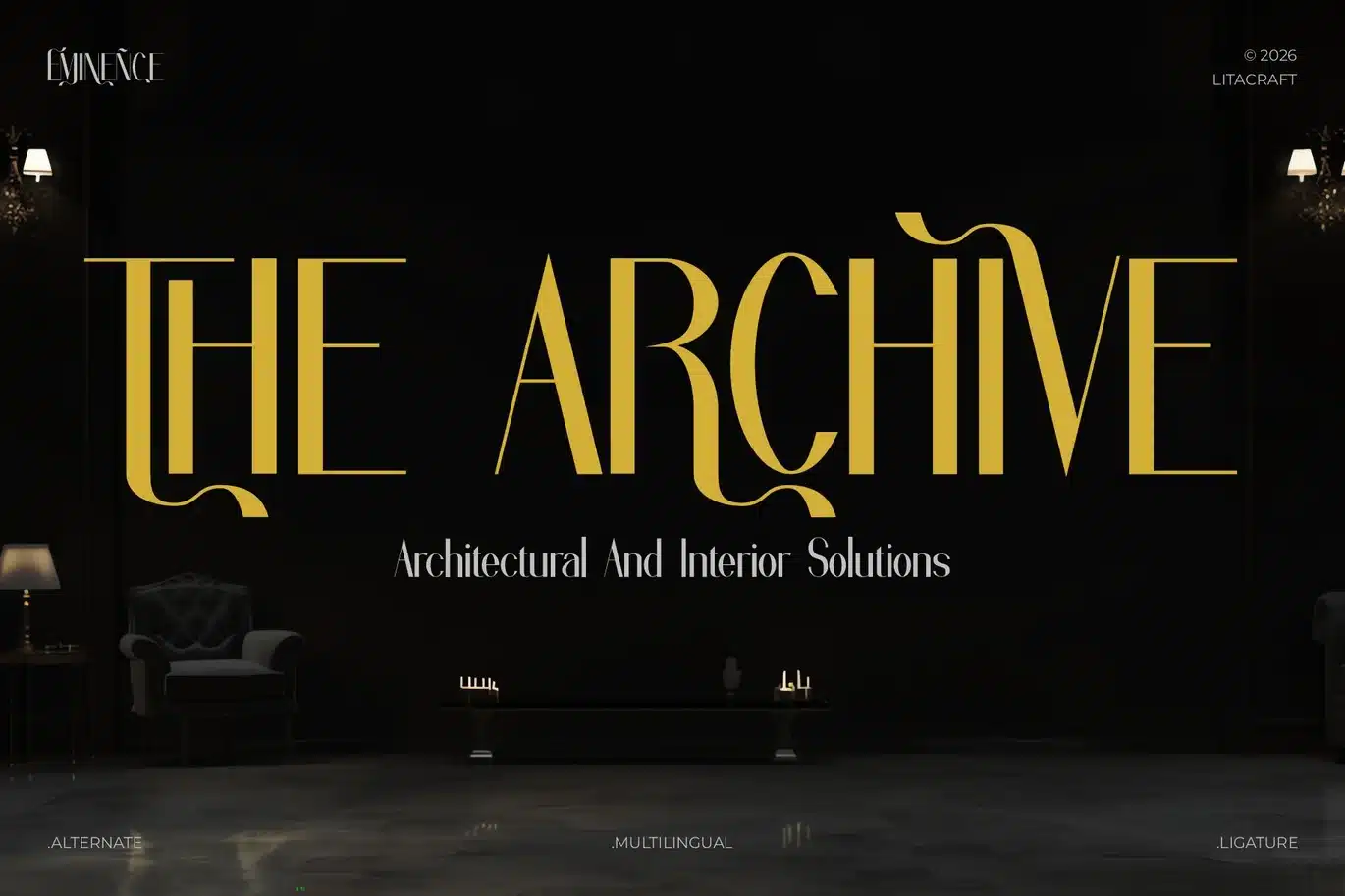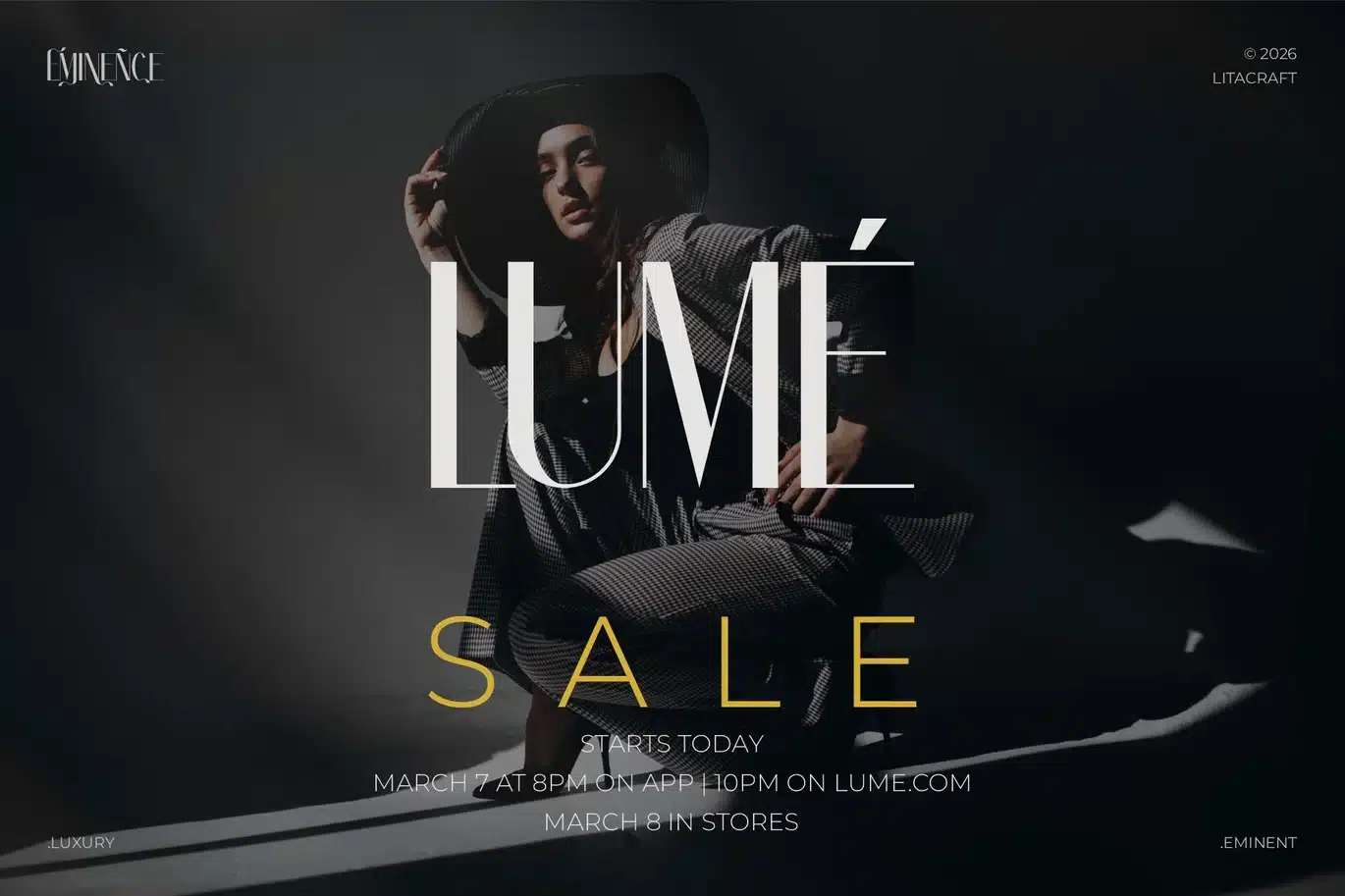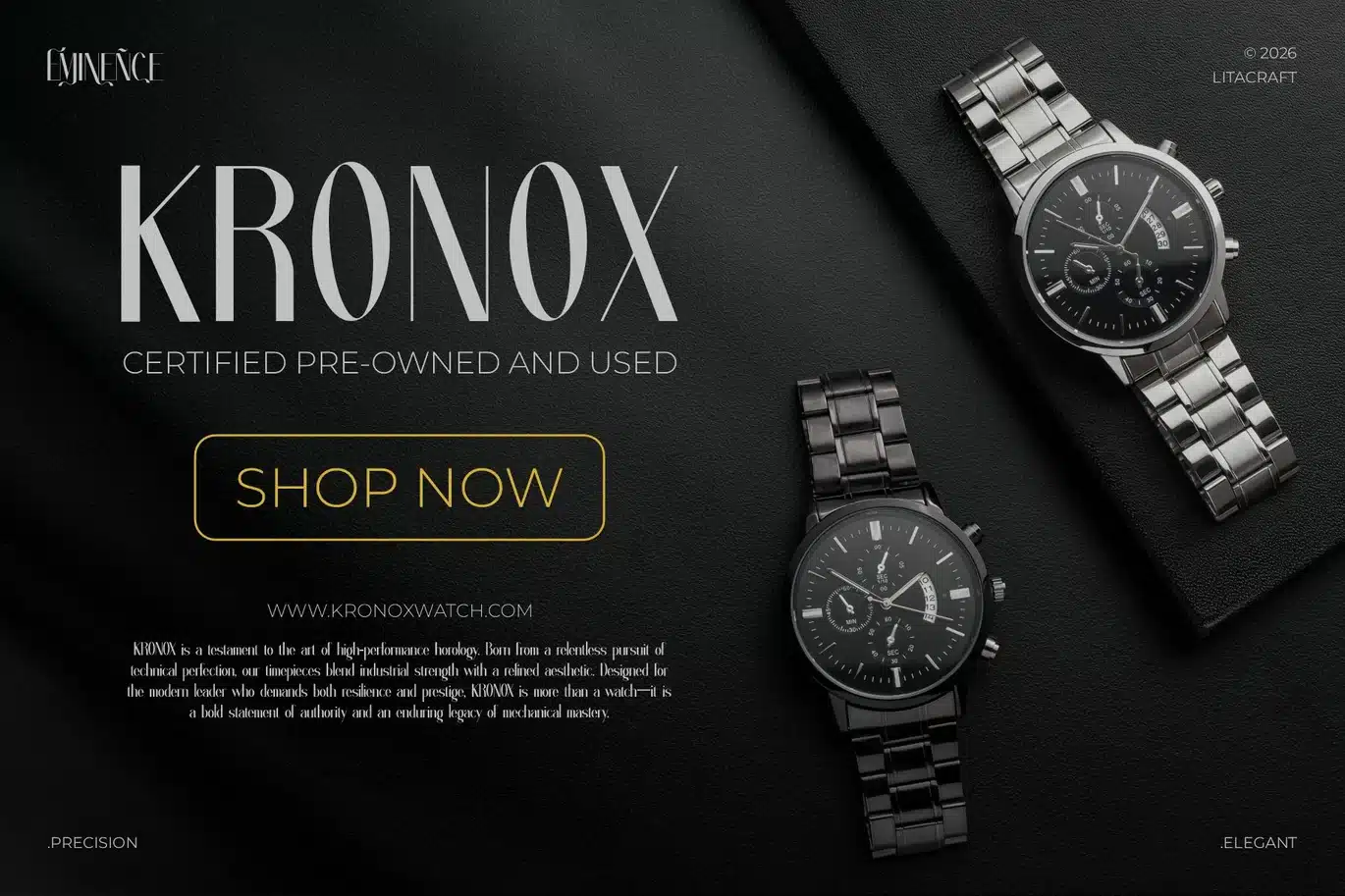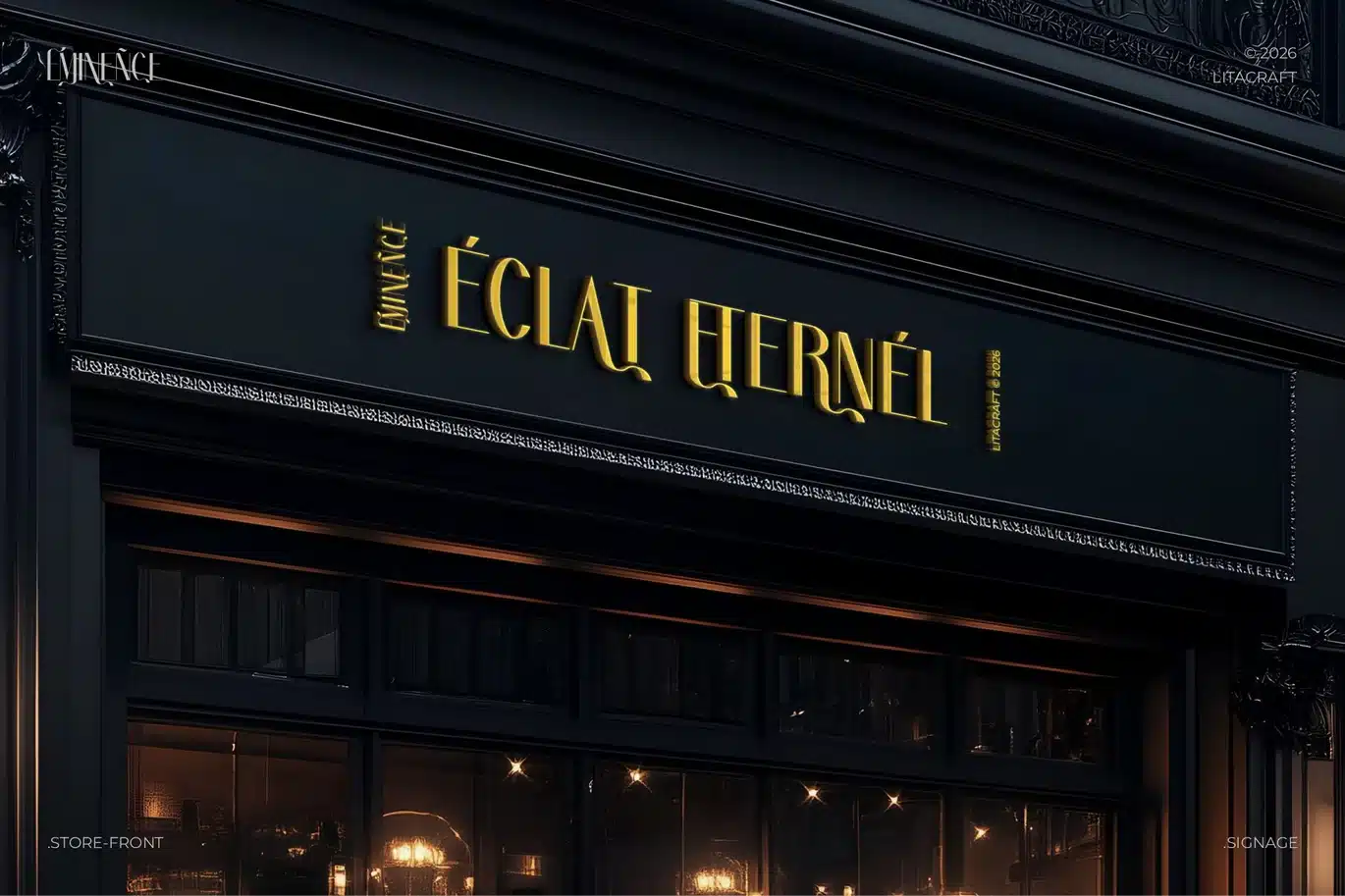
Eminence – Luxury Display Sans Font
Eminence is a masterfully crafted high-contrast sans-serif display font, designed to embody the essence of modern luxury and avant-garde editorial style. With its razor-sharp terminals and beautifully fluid wavy alternates, Eminence offers a unique balance between rigid sophistication and organic motion. This typeface is more than just a font; it is a complete branding solution. Whether you are designing for high-end fashion magazines, luxury jewelry packaging, boutique hotel identities, or cinematic titles, Eminence provides the versatility and "custom-lettering" feel required to stand out in a crowded market.
Eminence comes packed with a wealth of OpenType features, including over 200+ glyphs and a vast array of stylistic alternates and ligatures that allow you to create iconic logos with ease. Each character has been optically balanced to ensure a consistent "premium glow" in every layout.
- Complete Alphabet: Uppercase & Lowercase with high-contrast display.
- Rich OpenType Features: 25+ unique Ligatures and stylistic Alternates.
- Global Language Support: Full multilingual support for Western, Central, and South Eastern European languages.